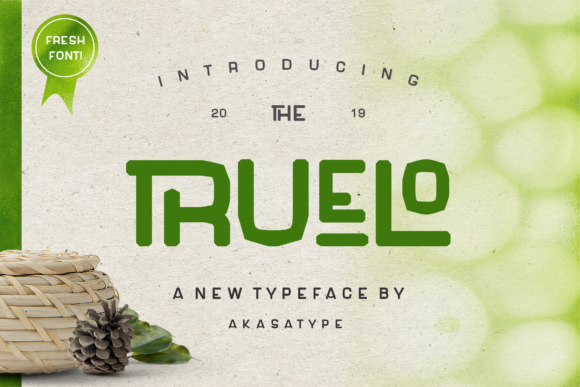
Truelo Font
Font Name : Truelo Font
Author : Akasatype
Journey into the world of Truelo, a display font family that captures the essence of teak trees, blending modern aesthetics with a touch of organic charm. Inspired by the intricate patterns and textures found in nature, Truelo Font brings a unique character to your creative projects.
With its clean lines, flowing curves, and distinctive letterforms, Truelo Font exudes a sense of sophistication and elegance. Each character is meticulously crafted to ensure readability, while still maintaining a captivating visual appeal. Whether you're working on branding, web design, or any other creative endeavor, Truelo Font is guaranteed to make a lasting impression.
This versatile font family comes in a variety of weights, from light to bold, providing you with the flexibility to adapt it to any project. Whether you desire a subtle, understated look or a bold, eye-catching statement, Truelo Font has the perfect weight to suit your needs. Mix and match different weights to create dynamic hierarchies and add depth to your designs.
Embrace the beauty of nature and the power of modern design with Truelo Font. Its organic inspiration and captivating character make it an ideal choice for projects that seek to evoke a sense of harmony and connection with the natural world. Let Truelo Font breathe life into your creative vision and transport your audience to a realm of beauty and elegance.